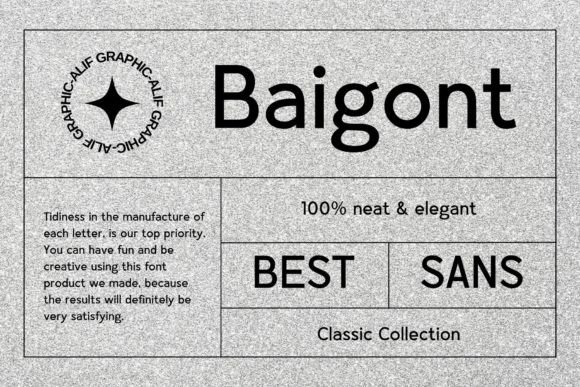
Encounter Baigont: A Sans Serif Font That's the Epitome of Modern Elegance
In a realm of digital artistry, typography stands as a beacon of creativity, transforming words into visual masterpieces. Among the vast array of fonts, Baigont emerges as a captivating dance of letters, a symphony of strokes that harmoniously blend modernity and elegance.
Crafted with meticulous precision, each character in Baigont exudes a sense of order and clarity, reminiscent of a crisp morning sky. Its clean lines and minimalist aesthetic evoke a timeless appeal, transcending the boundaries of trends and fads.
Immerse yourself in the world of Baigont and unleash your creative potential. Let your imagination soar as you explore the endless possibilities that await you with this versatile font. Whether you're designing a t-shirt, creating a stunning poster, or crafting a captivating social media post, Baigont will elevate your designs to new heights.
Indulge in the beauty of Baigont's seamless flow. Each letter gracefully transitions into the next, creating a rhythm that guides the reader's eye effortlessly across your text. Experience the joy of crafting harmonious compositions that captivate and engage your audience.
With Baigont as your creative companion, discover the joy of effortlessly conveying your message with a touch of sophistication and charm. Its versatile nature lends itself to a myriad of design projects, from sleek logos to eye-catching headlines.
Elevate your designs with Baigont, the sans serif font that embodies the essence of modern elegance. Let your creativity flourish as you explore the limitless possibilities that await you. Embrace the beauty of typography and transform your words into stunning visual masterpieces.